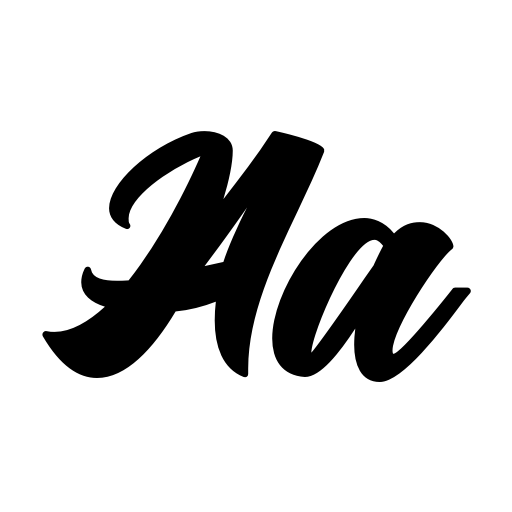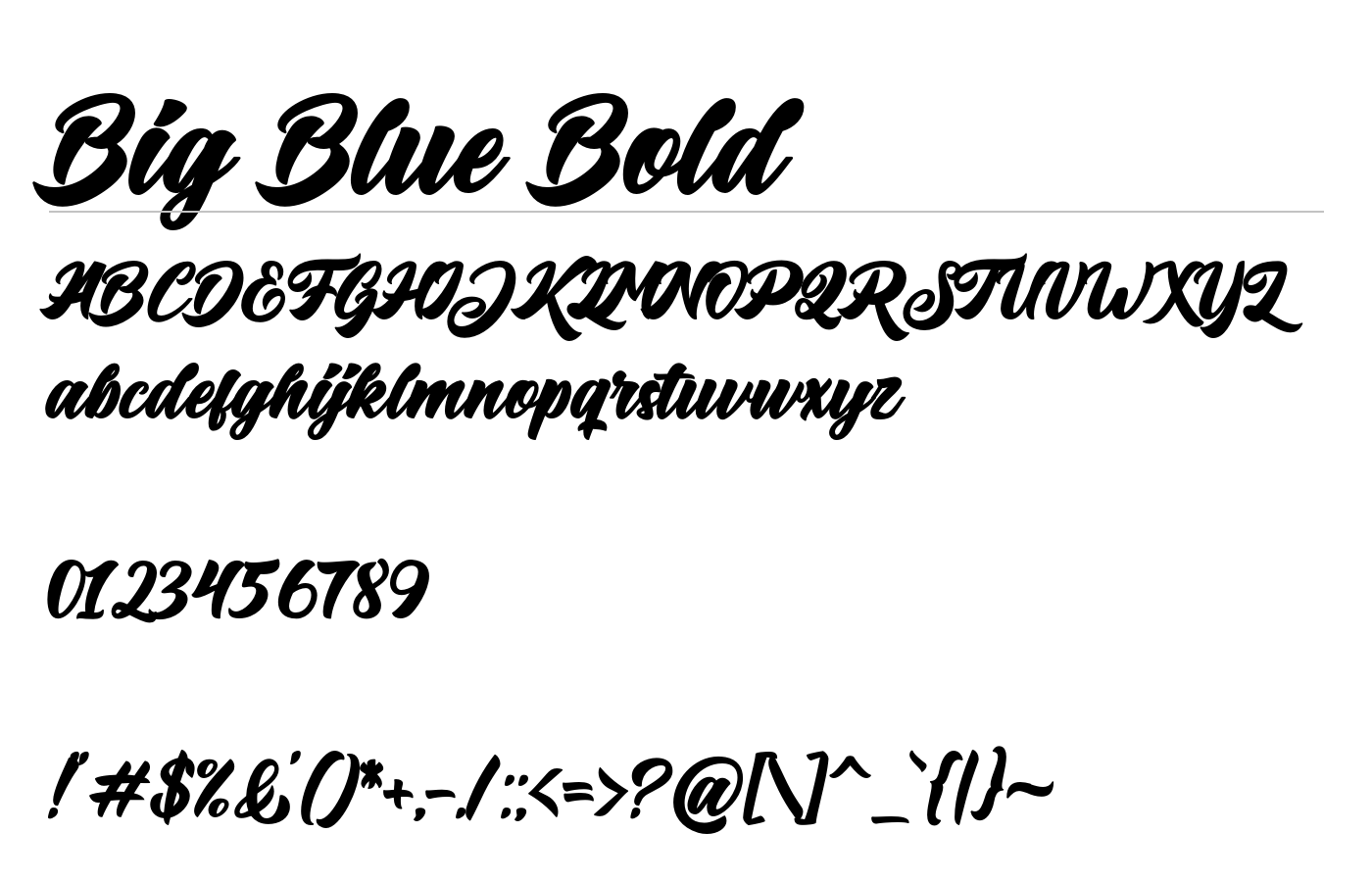
Big Blue Bold is a lively and confident script font with a bold weight and smooth, flowing strokes that give it a vintage yet dynamic feel. Its high contrast between thick and thin lines combined with slightly rounded edges creates an inviting, handcrafted look perfect for branding, logos, and headlines that need a strong personality with a touch of elegance. This font works especially well in creative and stylish contexts where a warm, energetic impression is desired.
Big Blue Bold Font
About Big Blue Bold Font
| Font family | Big Blue Bold Font |
| Designer | Ferdiansyah_Ijemrockart |